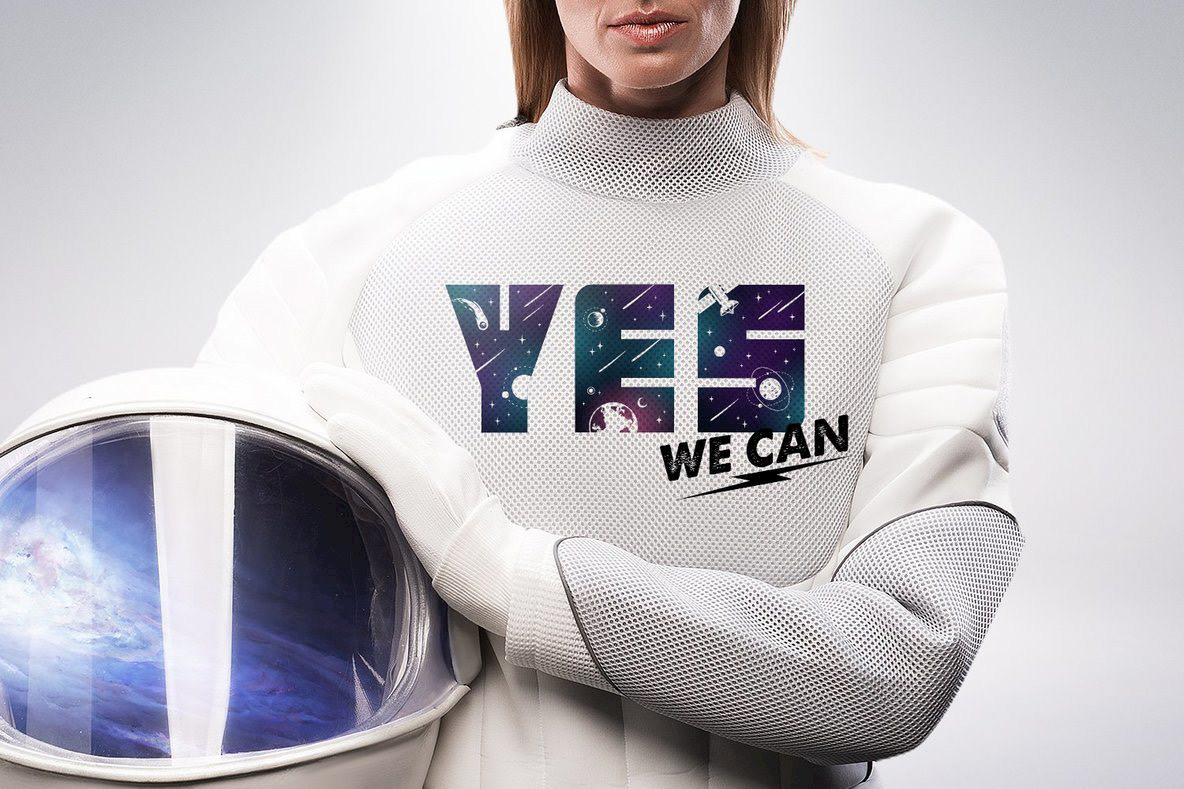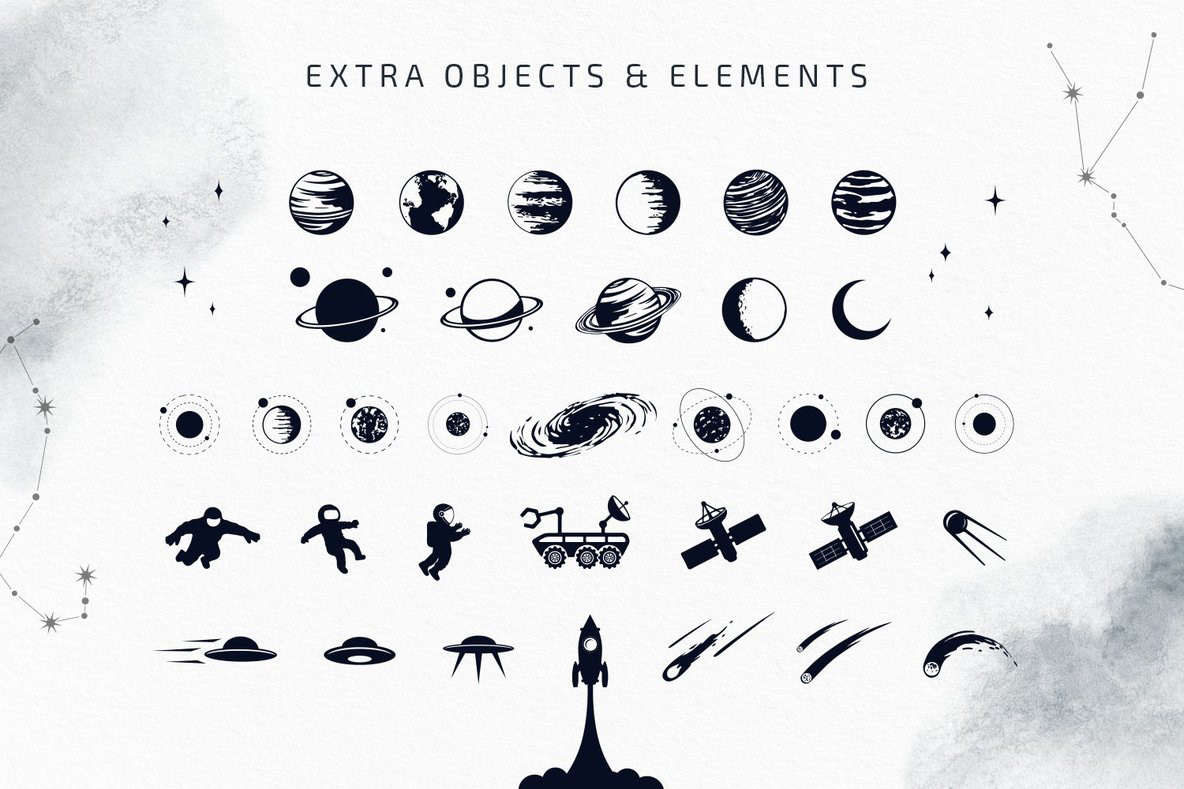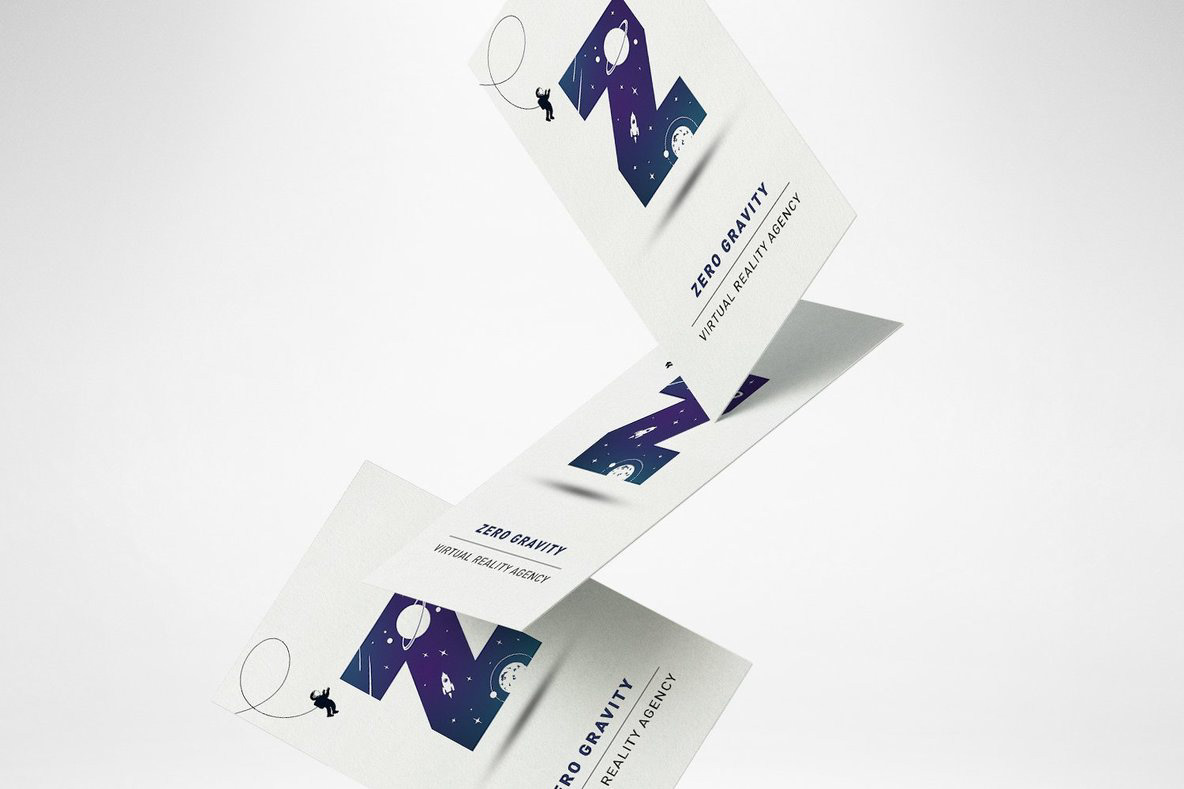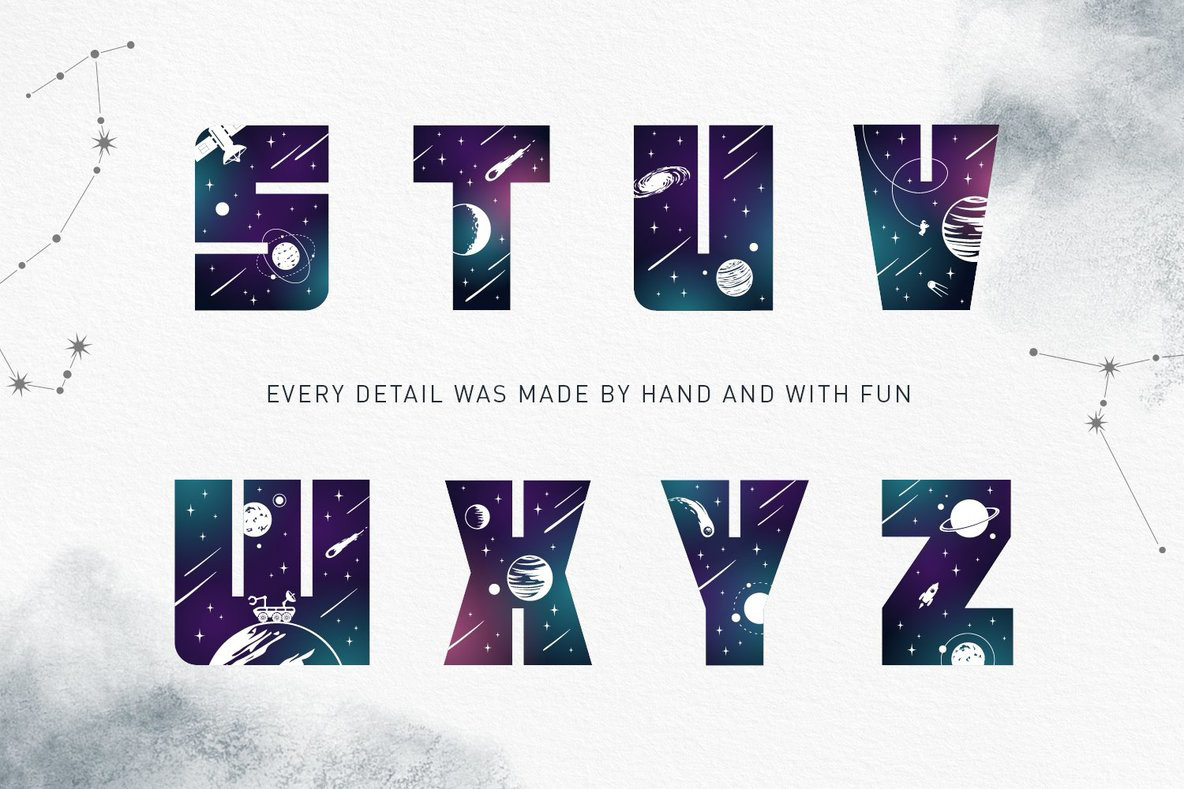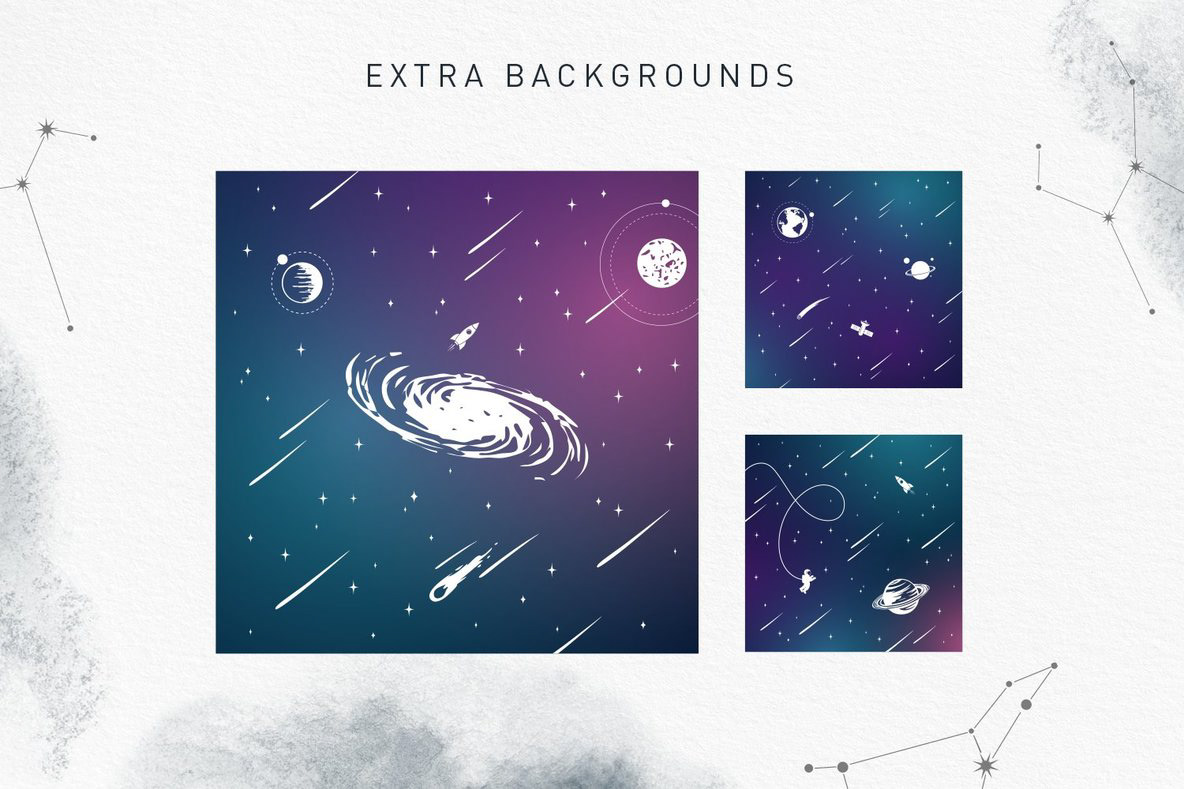
Lost In Space - SVG Font by Tanya Butskaya
Lost In Space is a modern font with a trendy double exposure effect. Each letter is unique and has its own cosmic story.
Lost In Space - SVG Font by Tanya Butskaya